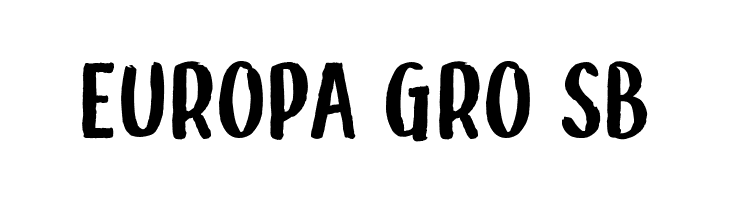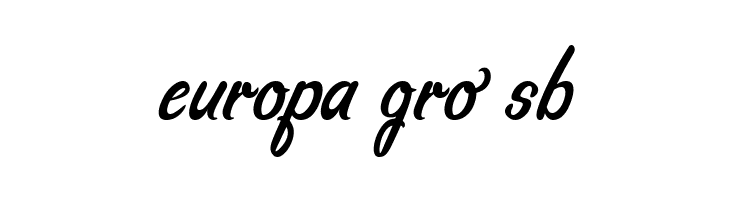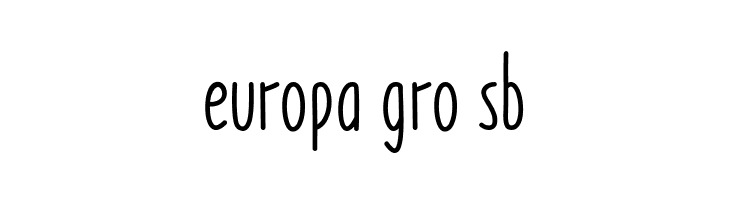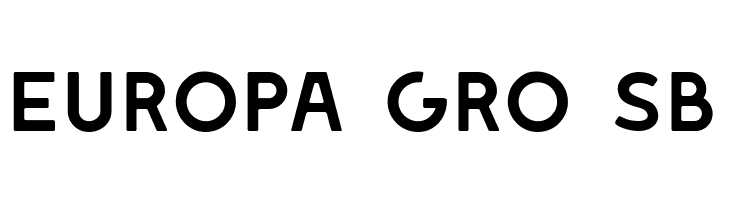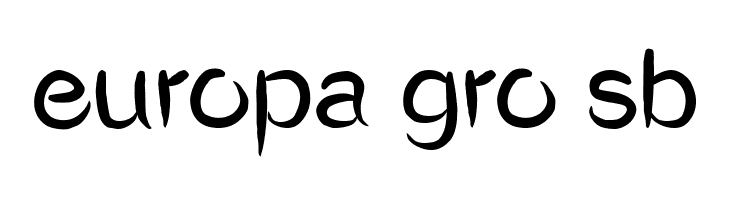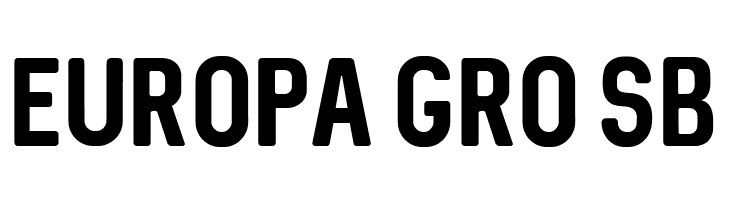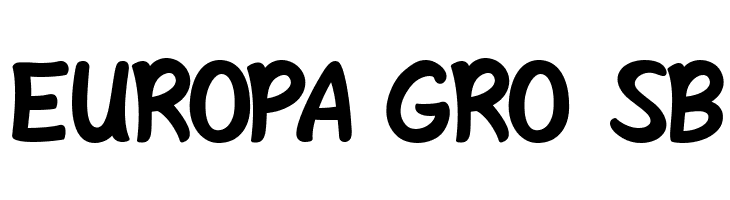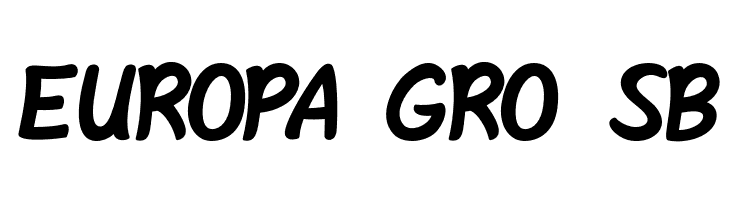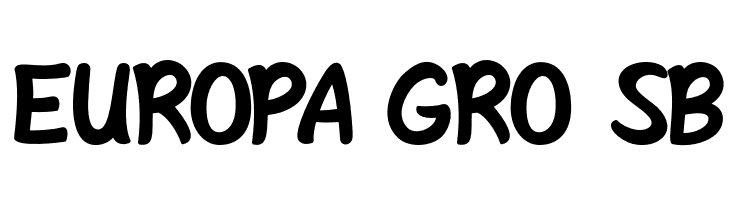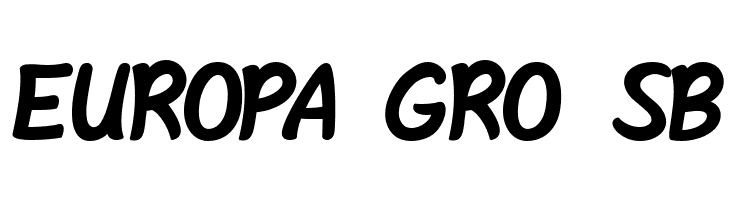
A bold, hand-drawn font with a rustic and organic feel.
A cursive, elegant font with a handwritten style and bold, connected letters.
A playful, hand-drawn font with tall, narrow characters and a whimsical style.
A bold, geometric font with a modern and technical design.
A playful, handwritten font with a whimsical and dynamic style.
A bold, modern sans-serif font with clean lines and uniform strokes.
A bold, playful handwritten font with rounded, irregular letterforms.
A bold, italicized handwritten font with smooth curves and a playful style.
A bold, playful handwritten font with rounded edges and thick strokes.
A bold, italic, handwritten font with a playful and dynamic style.